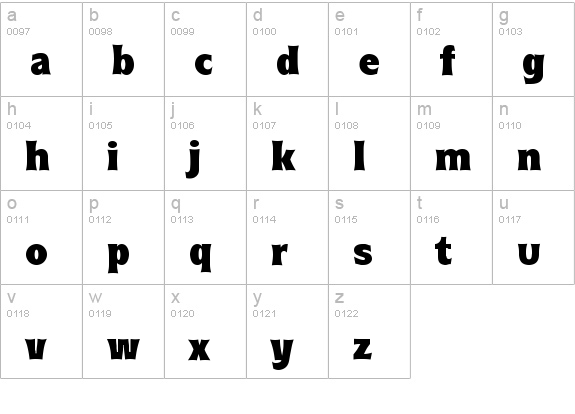
Eleutheria Display SSi Font Details
Eleutheria Display SSi font is a beautiful and elegant typeface that exudes sophistication and style. With its sleek lines and modern design, this font is perfect for adding a touch of class to any project. Whether you're creating a logo, designing a website, or working on a print project, Eleutheria Display SSi font will make your text stand out. This font is free to download at FontsMarket.com, making it easily accessible for anyone looking to enhance their design projects with a touch of elegance. Don't miss out on the opportunity to add Eleutheria Display SSi font to your collection and take your designs to the next level.